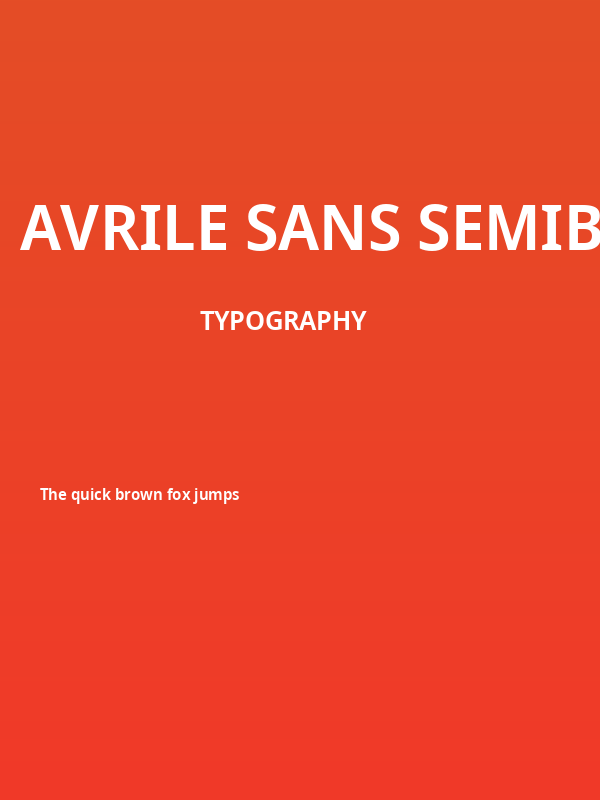
Avrile Sans SemiBold Font
Avrile Sans SemiBold Description
This font presents a clean and modern sans-serif style, characterized by its semi-bold weight. The letters are well-proportioned with a consistent stroke width, offering a balanced and harmonious appearance. The uppercase and lowercase letters are distinct and legible, making it suitable for various design purposes. The numerals are clear and straightforward, while the special characters are well-integrated, maintaining the overall aesthetic. The font's simplicity and clarity make it versatile for both digital and print media.
| Proposed Projects | Ideal for branding, advertising, web design, and editorial layouts where clarity and modernity are desired. |